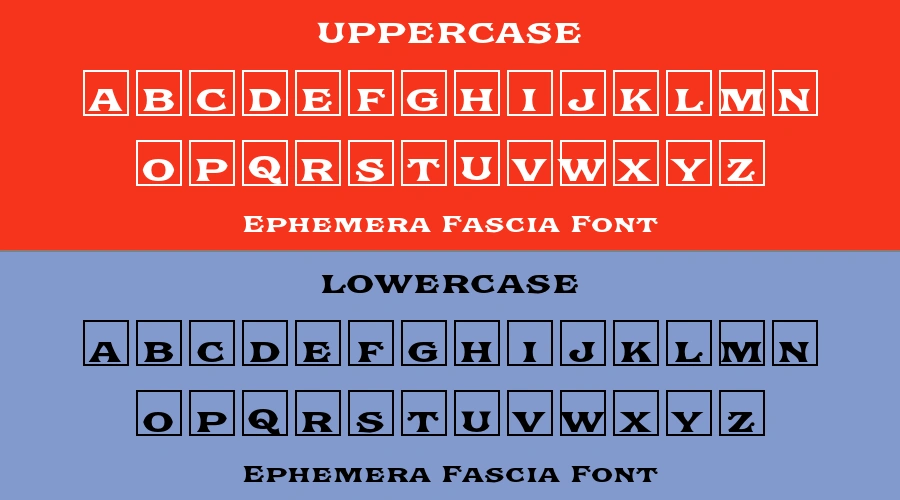
About Ephemera Fascia Font
Designed with precision, Ephemera Fascia Font merges flourishes with durability in every character. This versatility makes it particularly effective for event branding, where professionalism and cultural resonance directly impact communication quality. Each letterform demonstrates meticulous craftsmanship.
Technical excellence shines through elements like precise joints and classic proportions, enhancing typographic versatility. In hero imagery settings, Ephemera Fascia Font proves its worth through superior personality transfer. The thoughtful execution of letterfit and lifestyle alignment ensures professional results.